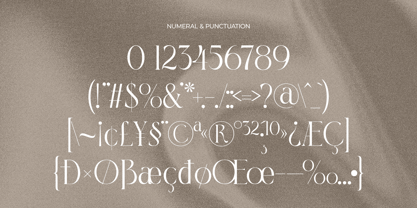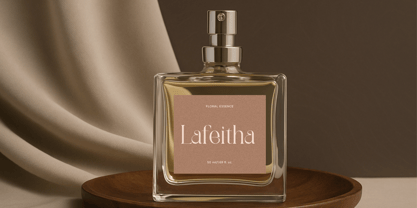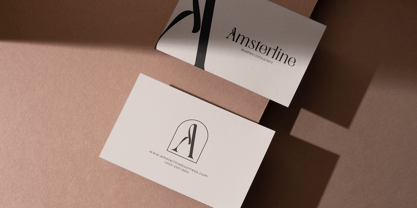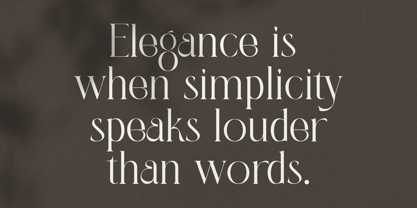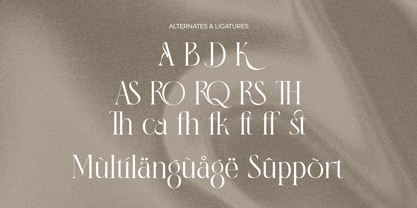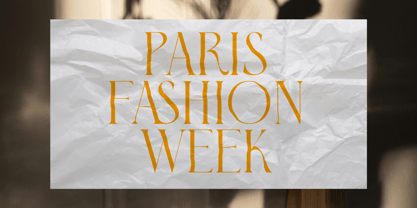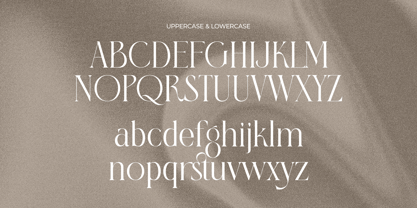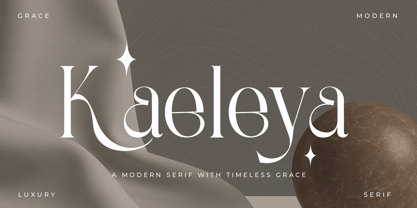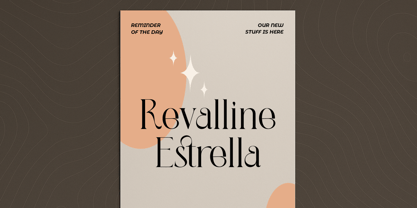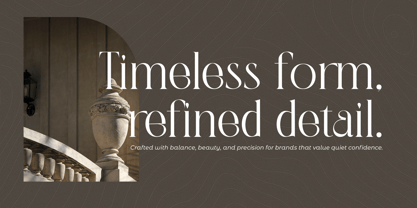
Kaeleya
The Kaeleya Font Family was designed by Muhammad Mujibulloh and published by MJB Letters. Kaeleya contains 2 styles and family package options. More about this family
Kaeleya is a modern luxury serif font crafted for designers who value simplicity, refinement, and timeless elegance. With graceful curves, elevated letterforms, and a sophisticated editorial presence, Kaeleya delivers a quiet confidence—perfect for brands that want to shine without shouting. Designed with a contemporary serif structure and delicate high-contrast strokes, Kaeleya offers a harmonious blend of modern aesthetics and classic beauty, making it ideal for premium identities and artistic visual storytelling. ✦ Perfect for: • Luxury branding & high-end logo design • Beauty, fashion, and lifestyle packaging • Editorial layouts & magazine titles • Wedding stationery and boutique identity • Perfume, skincare, and artisanal product labels • Quote graphics and stylistic display design ✦ Features: • Complete uppercase & lowercase alphabet • Elegant numeral & punctuation set • Stylish alternates for refined lettering • Multilingual support for extended use ✦ Why Kaeleya? Kaeleya lets simplicity speak louder. It enriches your design with subtle sophistication and immaculate presence—ideal for brands that desire a polished, graceful, and premium visual voice. Bring elegance to your next project with Kaeleya, a serif font where modern charm meets timeless grace.